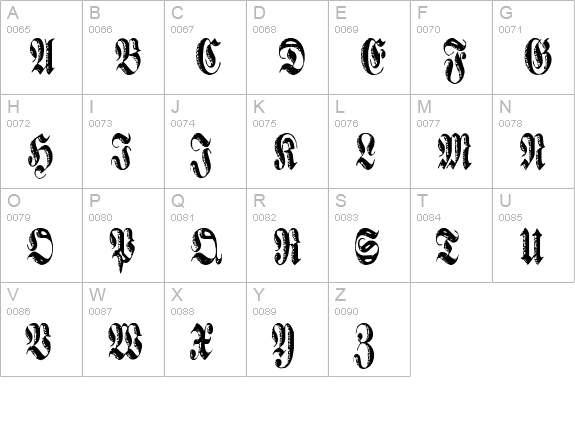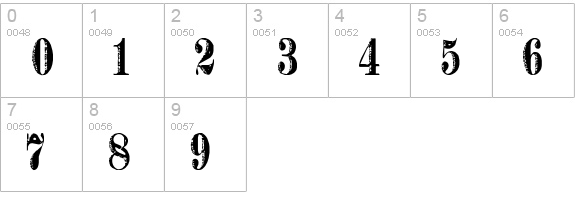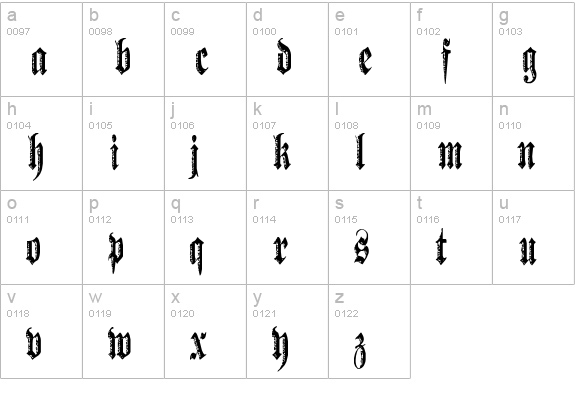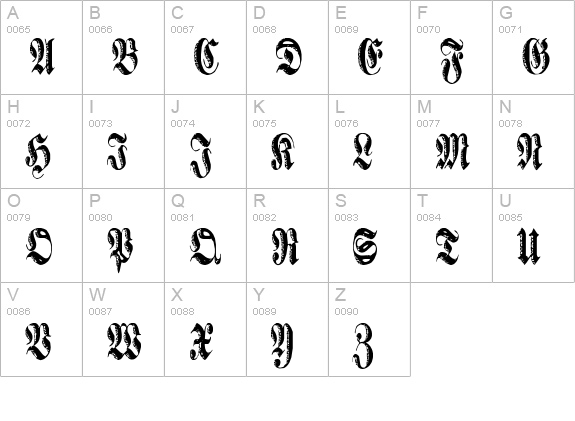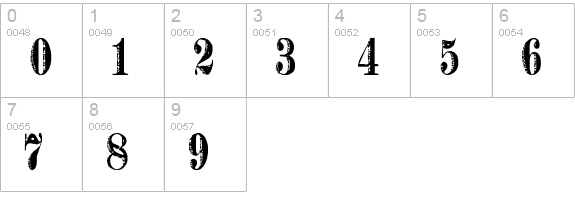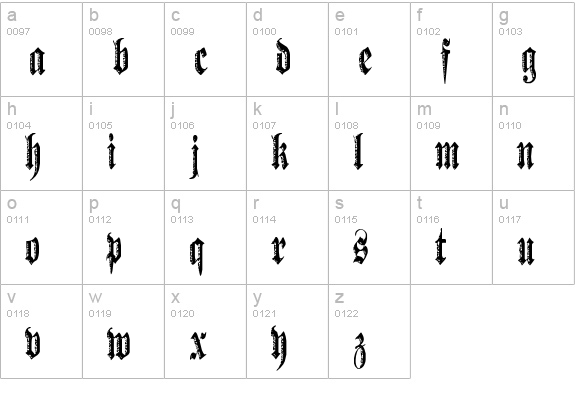
Introducing the exquisite and captivating font that is sure to make your designs stand out from the crowd. Our latest creation, [Font Name], is a stunning typeface that combines elegance with modernity, making it perfect for a wide range of design projects. With its clean and precise lines, [Font Name] exudes an air of sophistication and professionalism. Its well-crafted letterforms are meticulously designed to create a harmonious balance between legibility and style, making it ideal for both display and body text. But what sets [Font Name] apart from other fonts is that it is freely available to download at FontsMarket.com. Yes, that's right! This exceptional font can be yours without spending a penny. Whether you are a professional designer or a creative enthusiast, [Font Name] offers you the opportunity to elevate your creations without breaking the bank. From branding and logo design to advertisements and website headers, [Font Name] brings a touch of elegance and sophistication to any project. Its versatility allows it to seamlessly adapt to various design styles, making it a valuable asset in your font collection. Not only does [Font Name] possess an impeccable aesthetic, but it also boasts an extensive character set, including multiple language support and a wide range of punctuation and symbols. This ensures that you can effectively communicate your message, no matter the language or context. So, why wait? Unlock the potential of your designs with the mesmerizing beauty of [Font Name]. Download it for free at FontsMarket.com and experience the seamless blend of elegance and functionality that this font has to offer. Don't miss out on this incredible opportunity to enhance your designs and make a lasting impression. Get [Font Name] today and let your creativity soar to new heights.